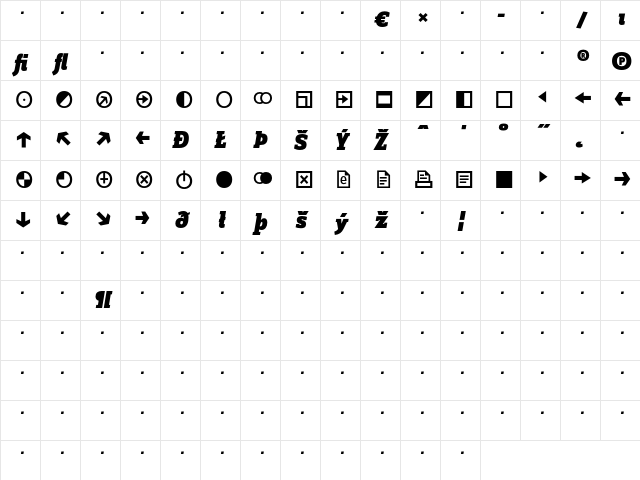
ZineSlabDis Black Italic Exp
Style: Black Italic Exp
Design Context for ZineSlabDis
ZineSlabDis features prominent, blocky serifs that give it a confident, grounded presence - equally at home in editorial settings and bold branding work. The slanted form adds forward momentum and visual energy.
Pro Tip: Use ZineSlabDis for headlines and subheadings where its slab serifs can make an impression. It also holds up well in mid-size body copy thanks to its sturdy construction.